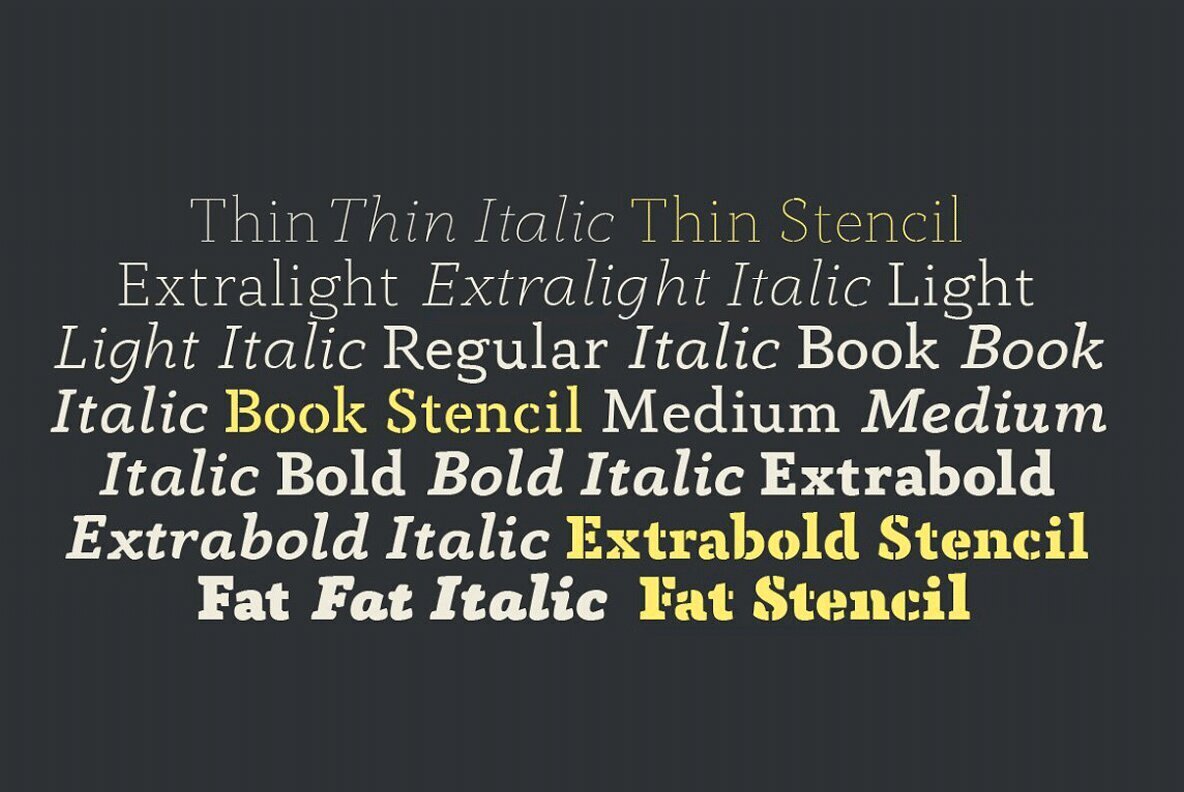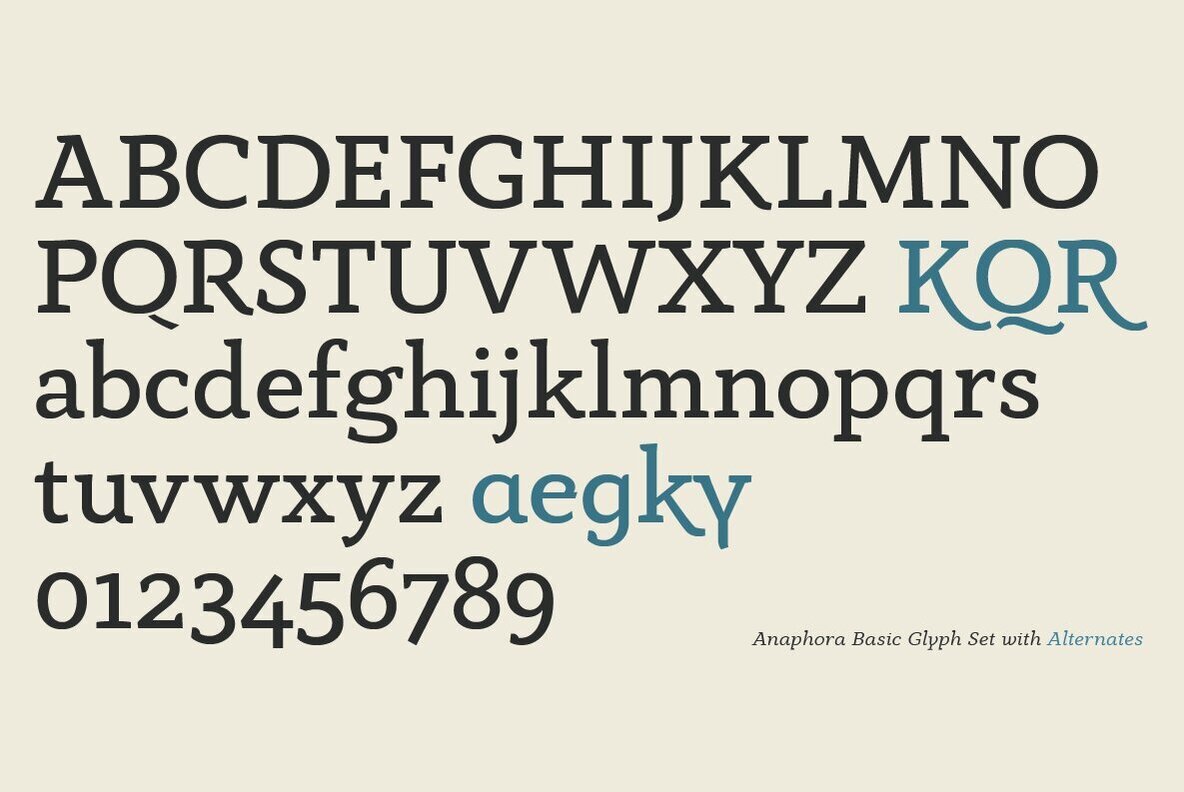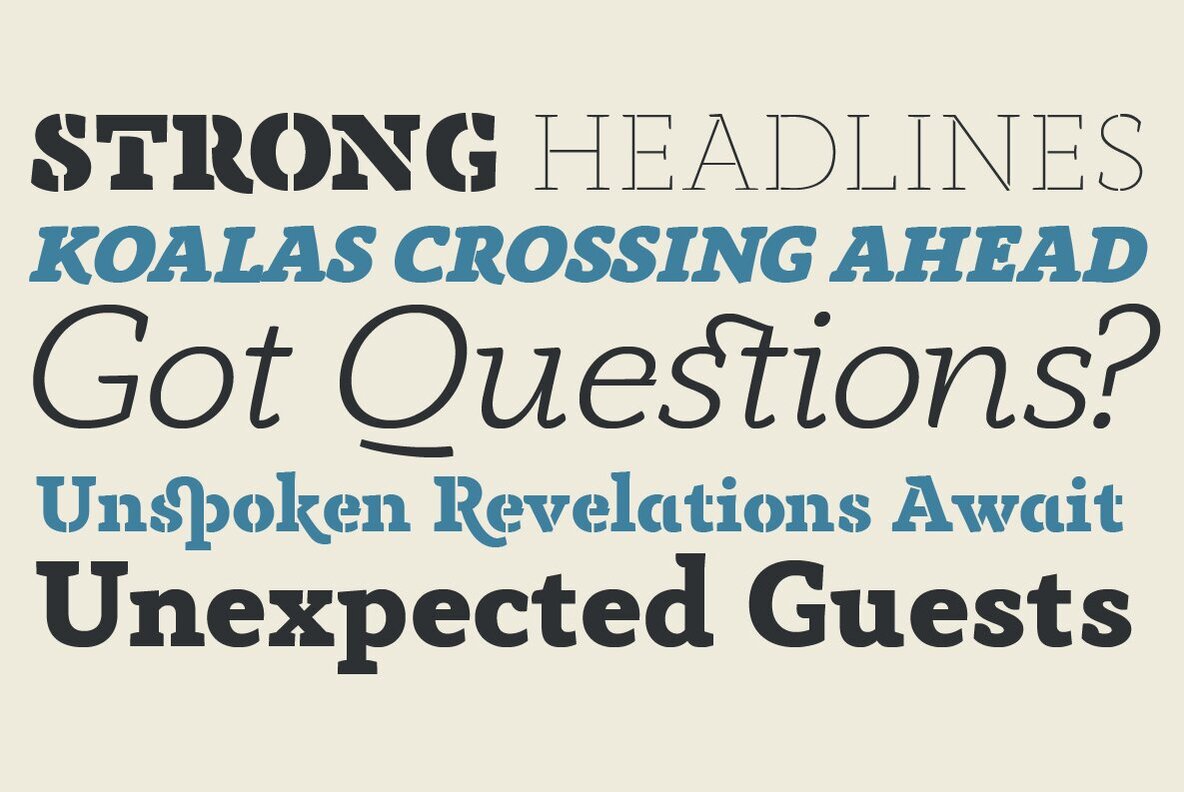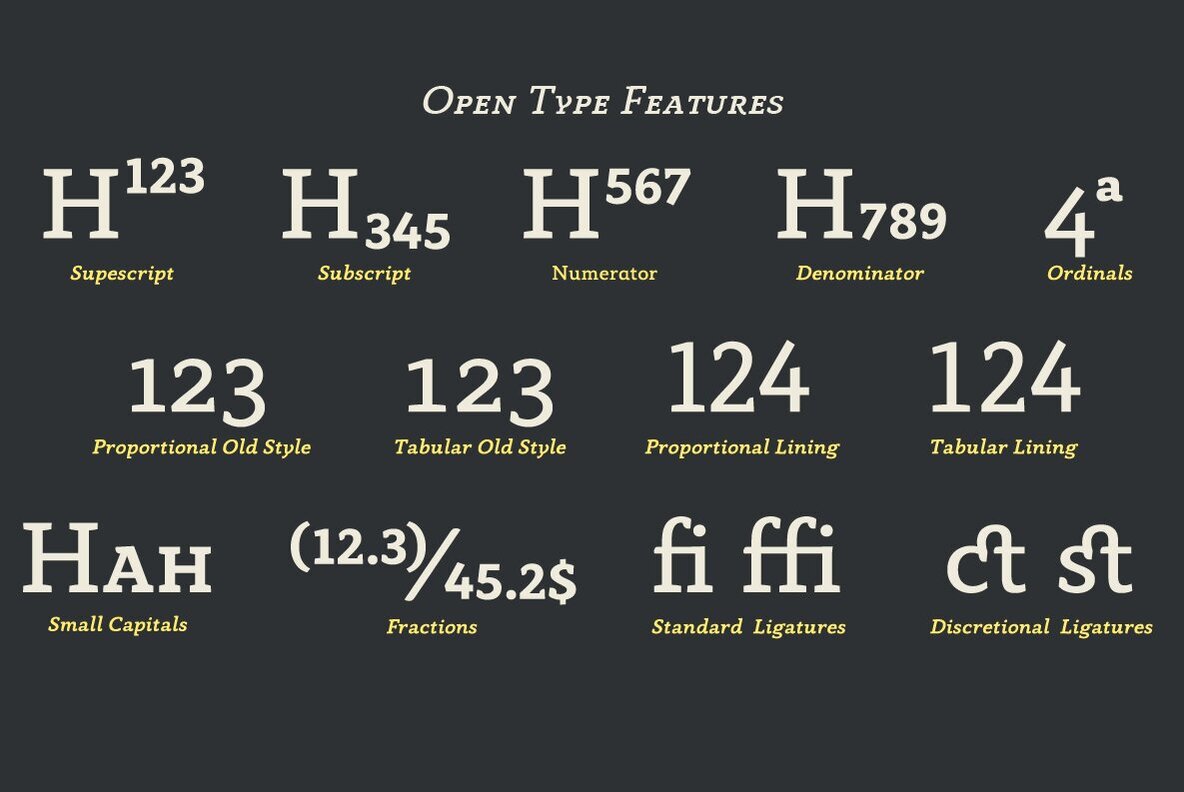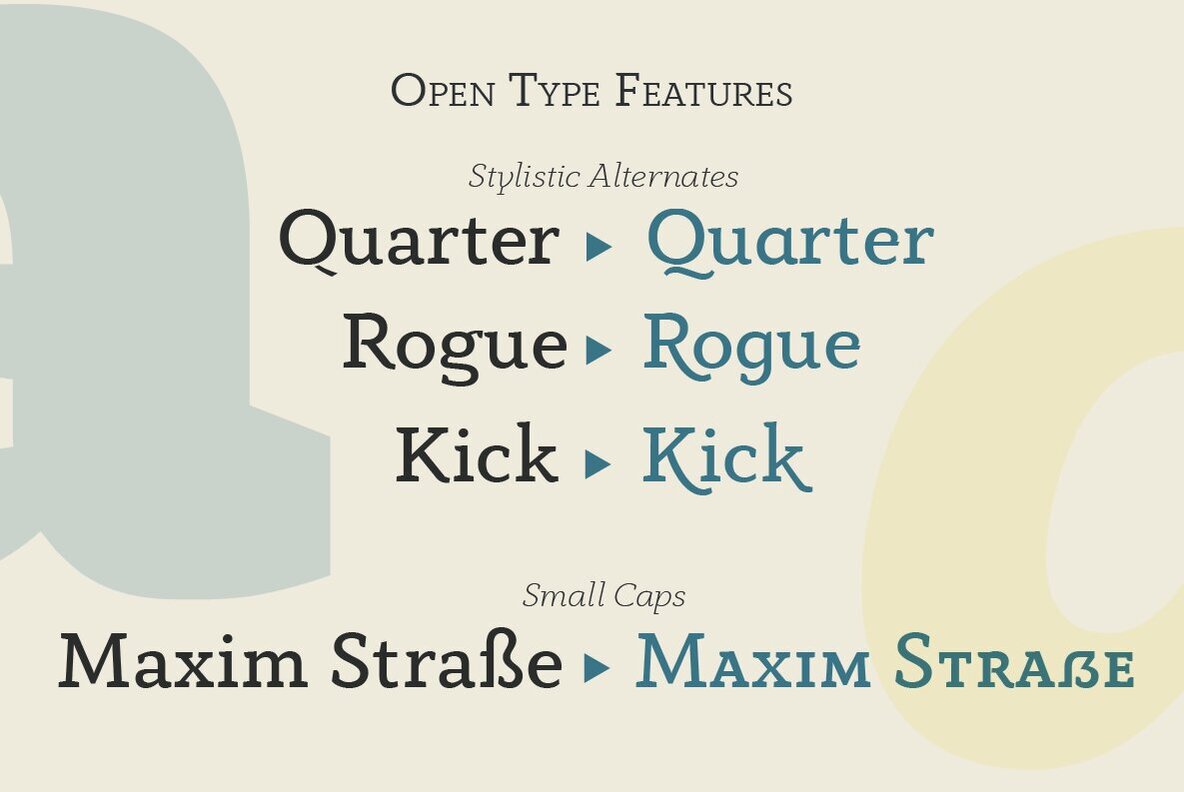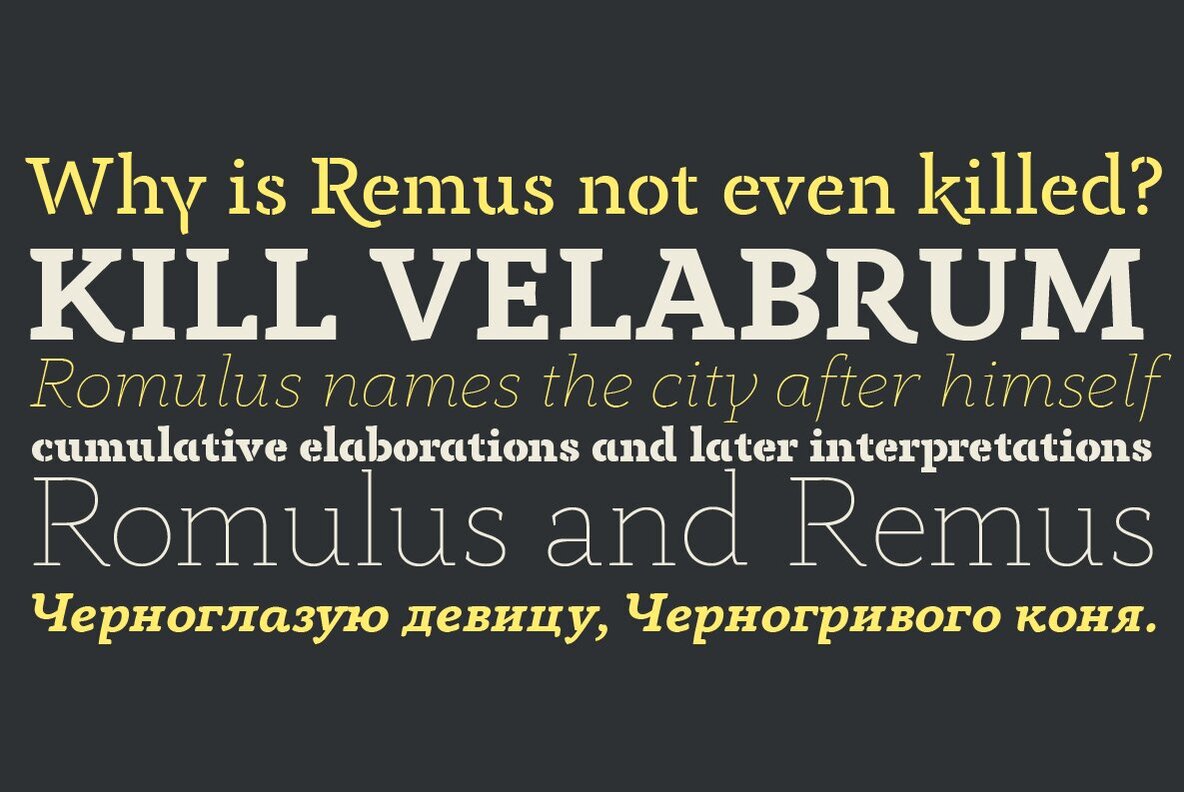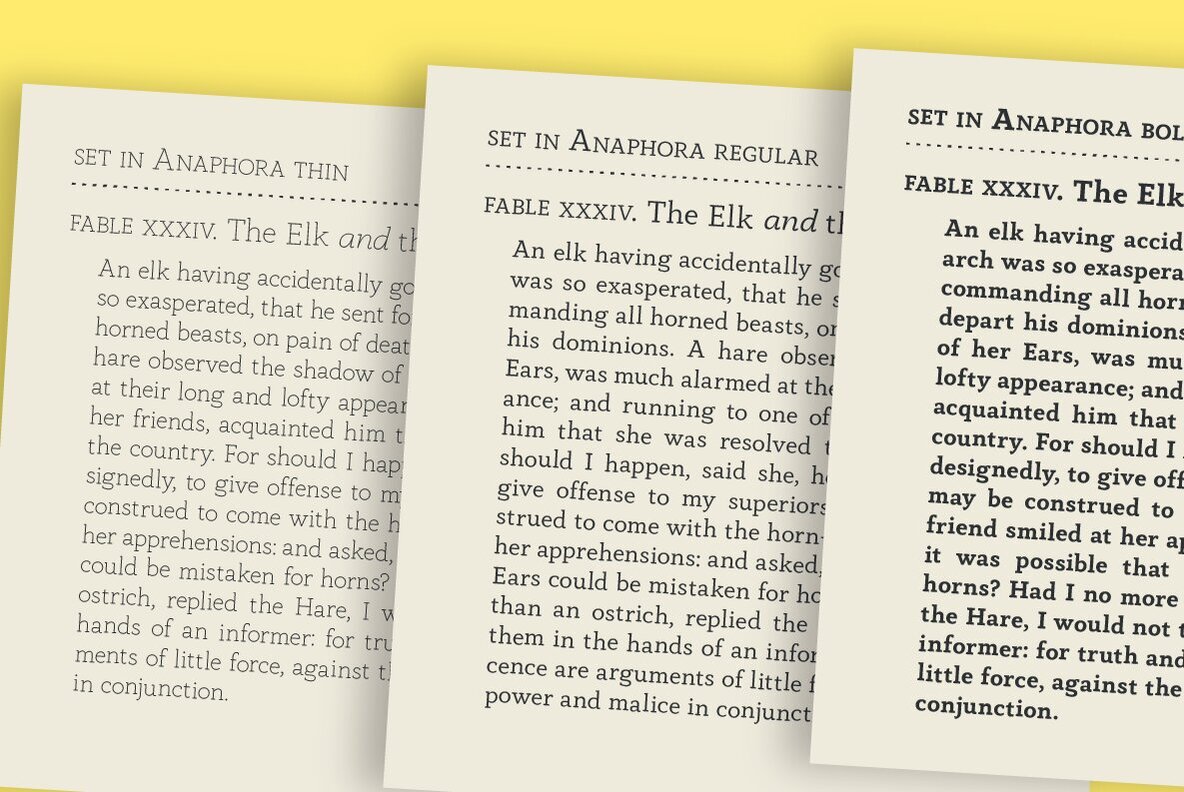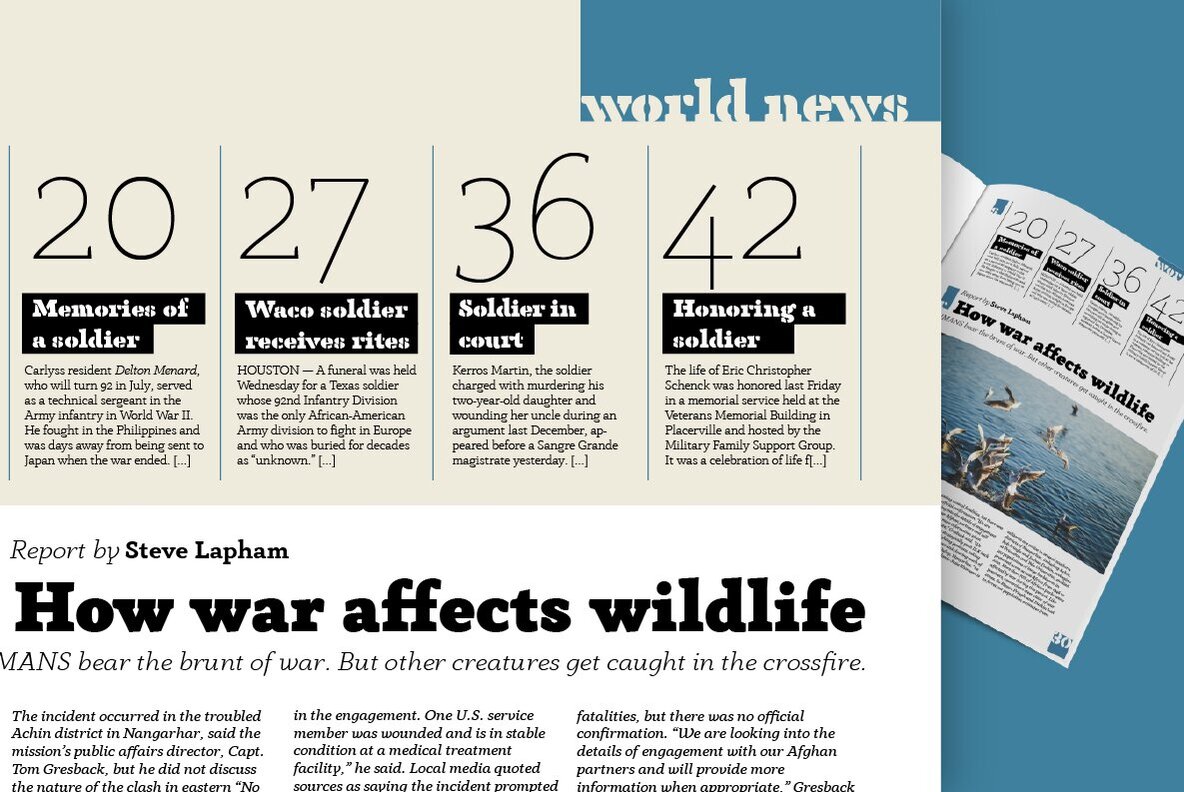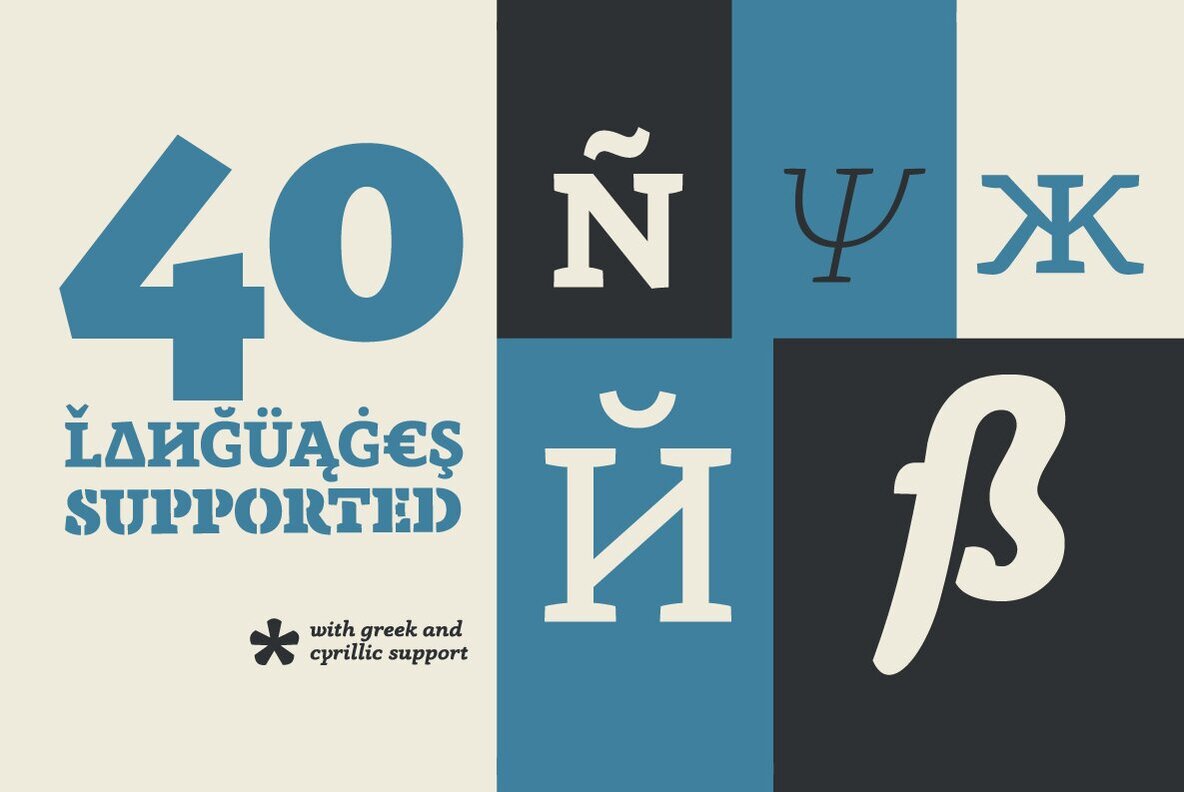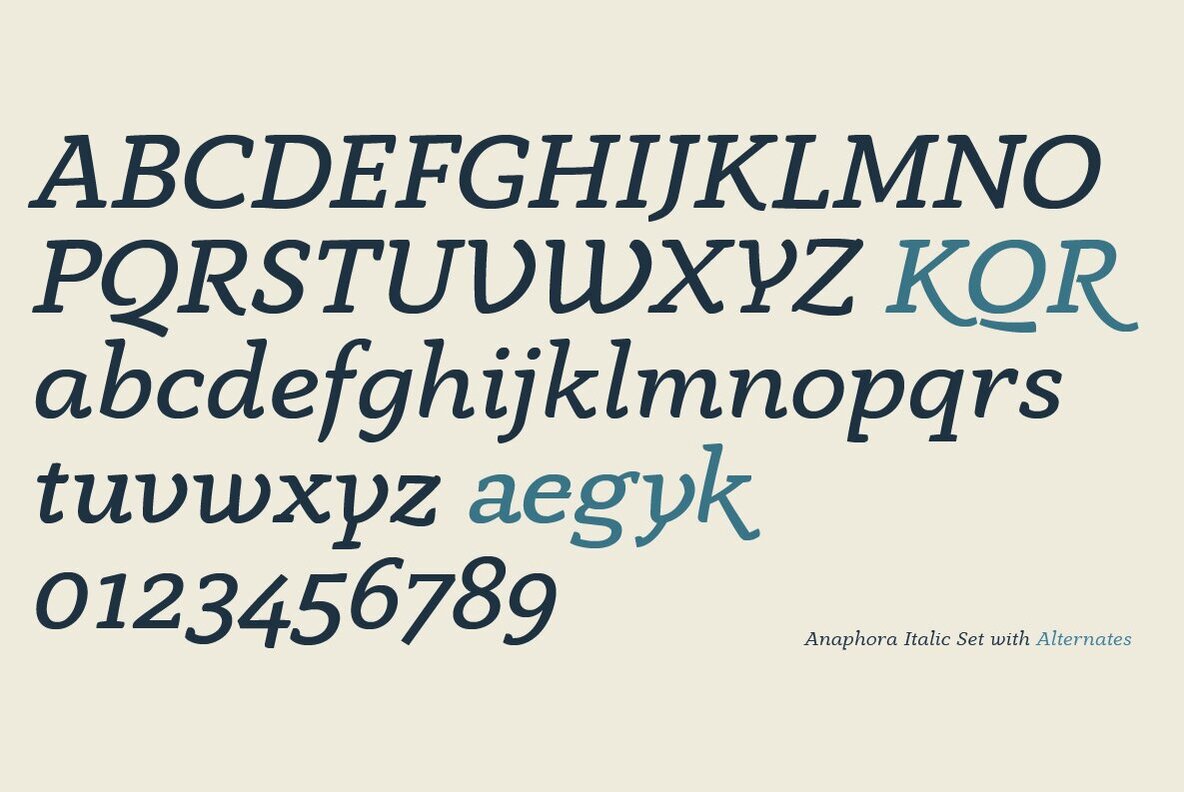
Anaphora Font
Anaphora is a contemporary serif typeface designed by Francesco Canovaro with Cosimo Lorenzo Pancini and Andrea Tartarelli. It features a wedge serif design with nine weights from thin to fat, each with true italics style, for a full range of editorial and advertising uses. Its wide counters and low x-height make it pleasant and readable at text sizes while the uncommon shapes make it strong and recognizable when used in display sizes.
Four additional stencil weights provide options for fancy titling and logo creation.
Anaphora features an extended character set that covers over forty languages using the latin alphabet, as well as Greek and Russian Cyrillic. Open type features include small caps, four sets of figures, fractions, superior & inferior figures, alternate forms and discretionary ligatures.